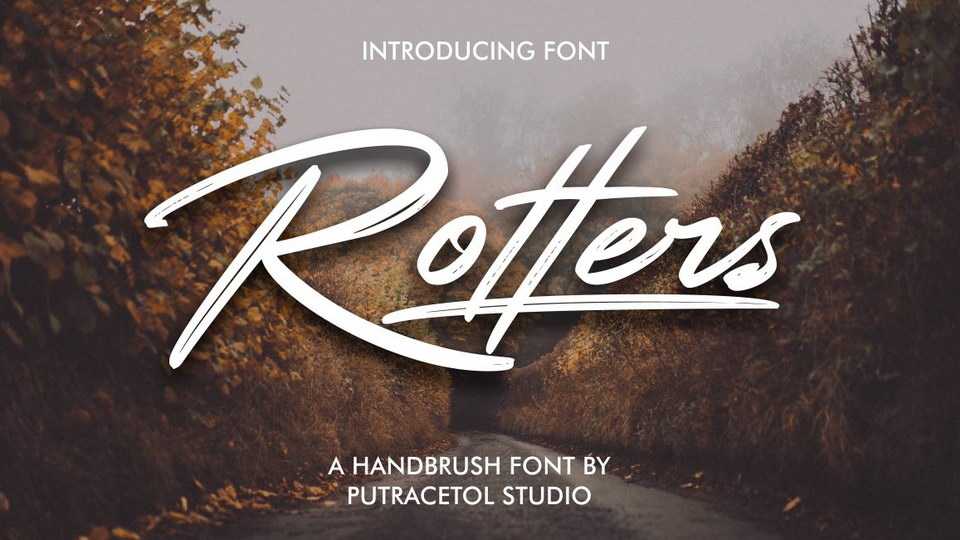
Rotters Font › Fontesk
Download Rotters font, a modern brush sctipt with handwritten style and natural rough dry brush strokes. Rotters perfect for logo, signature, quote, branding projects and more.
Designer: PutraCetol Studio